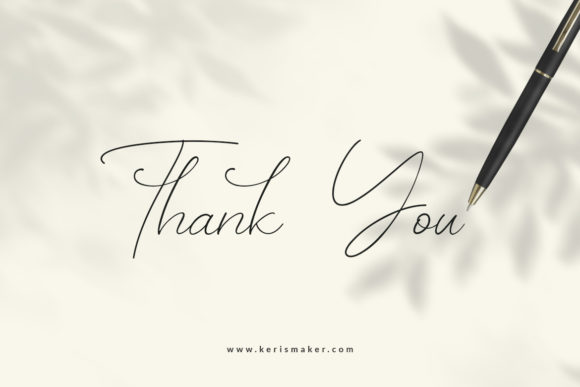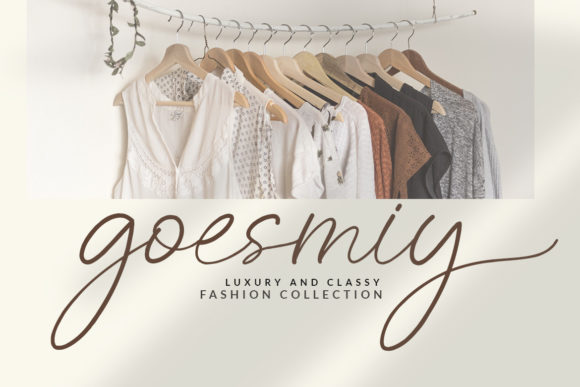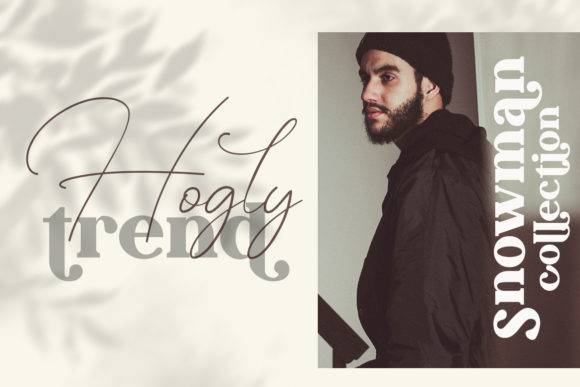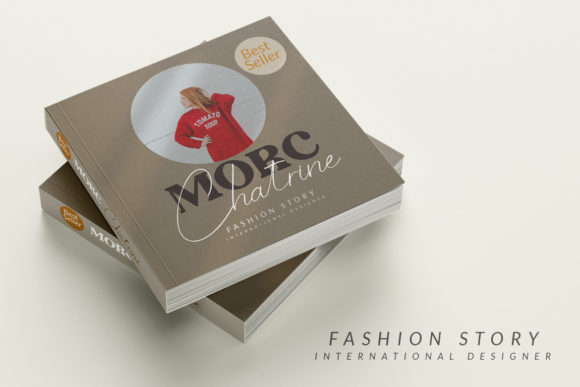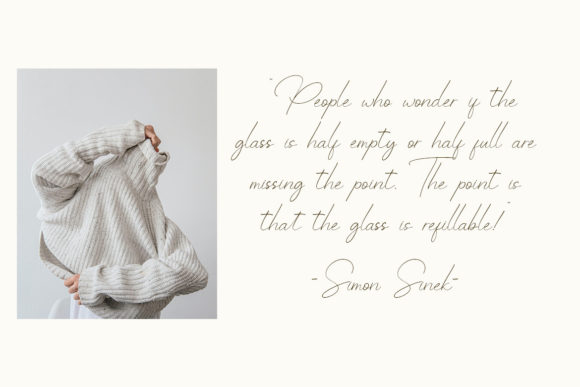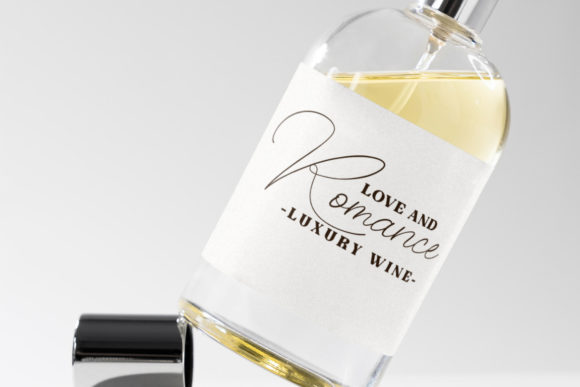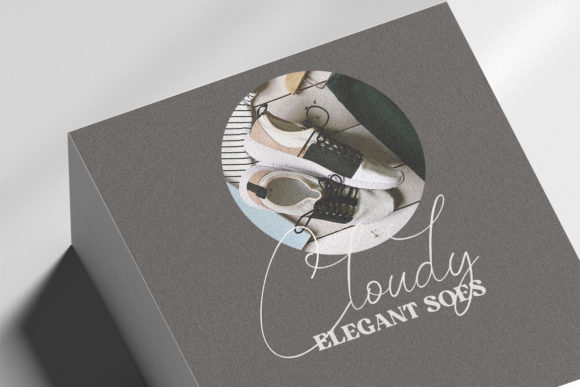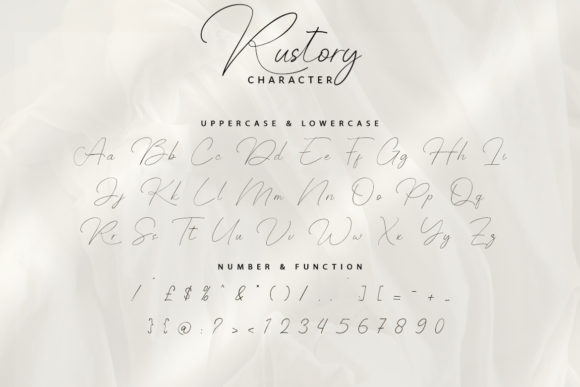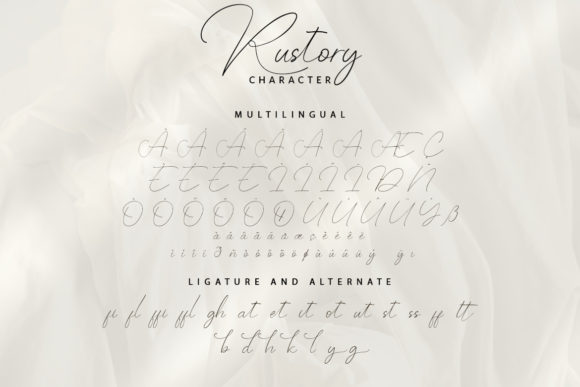
Rustory Font
About Rustory Font
Rustory is a thin lettered and delicate script font. Fall for its ravishing style and use it to create gorgeous wedding invitations, beautiful stationary art, eye-catching social media posts, and much more!